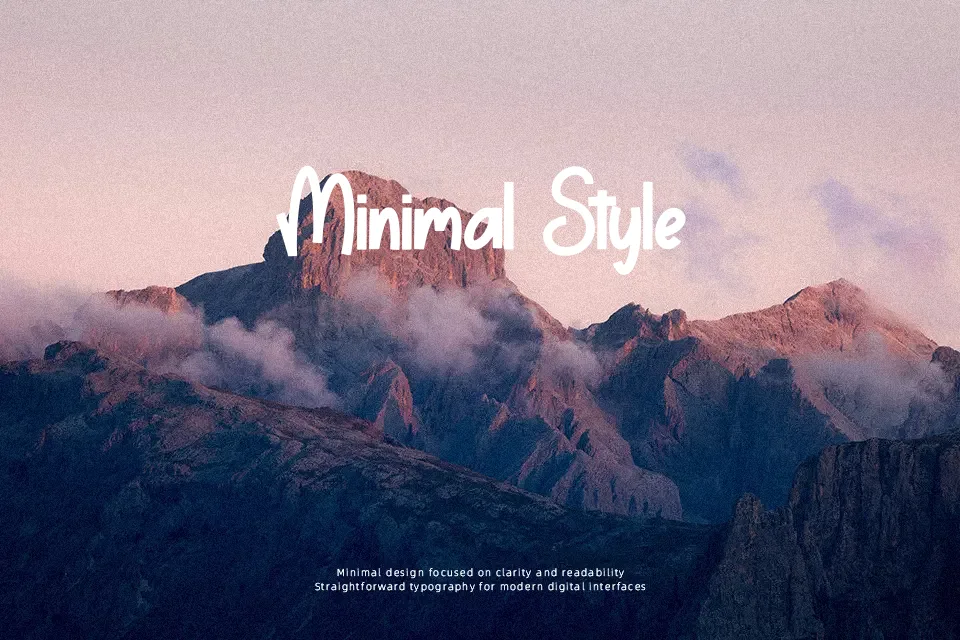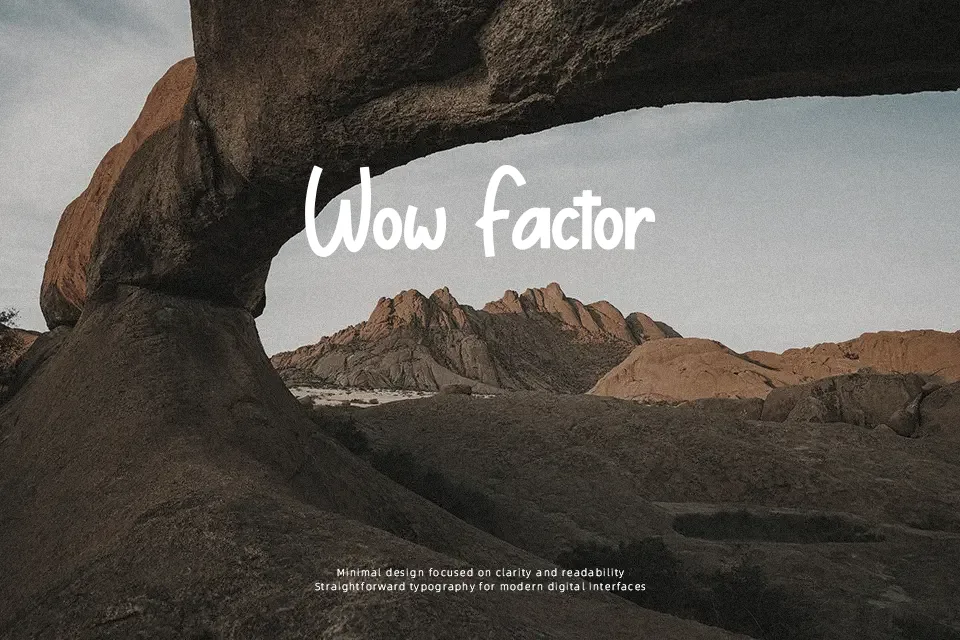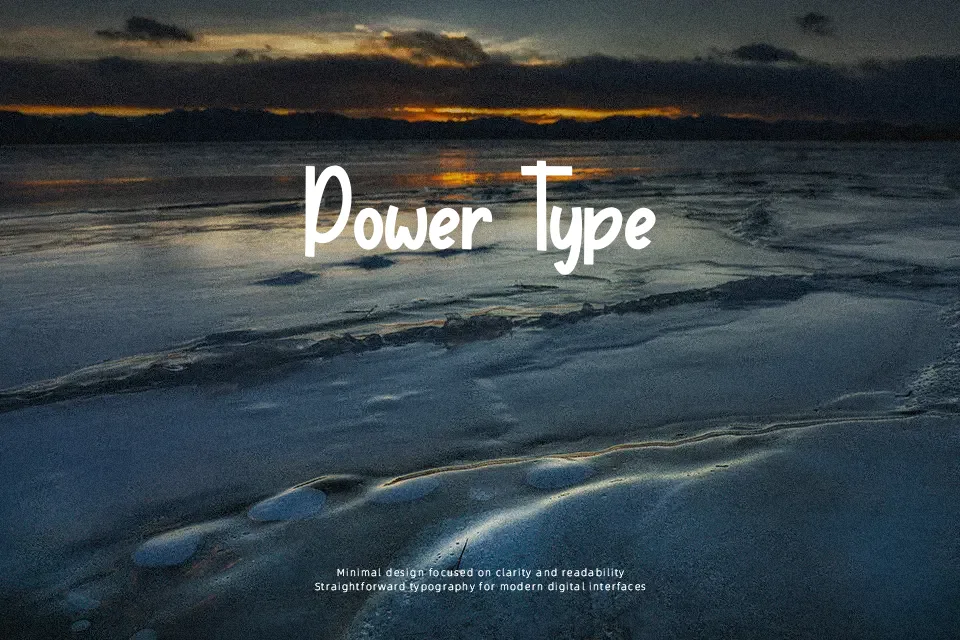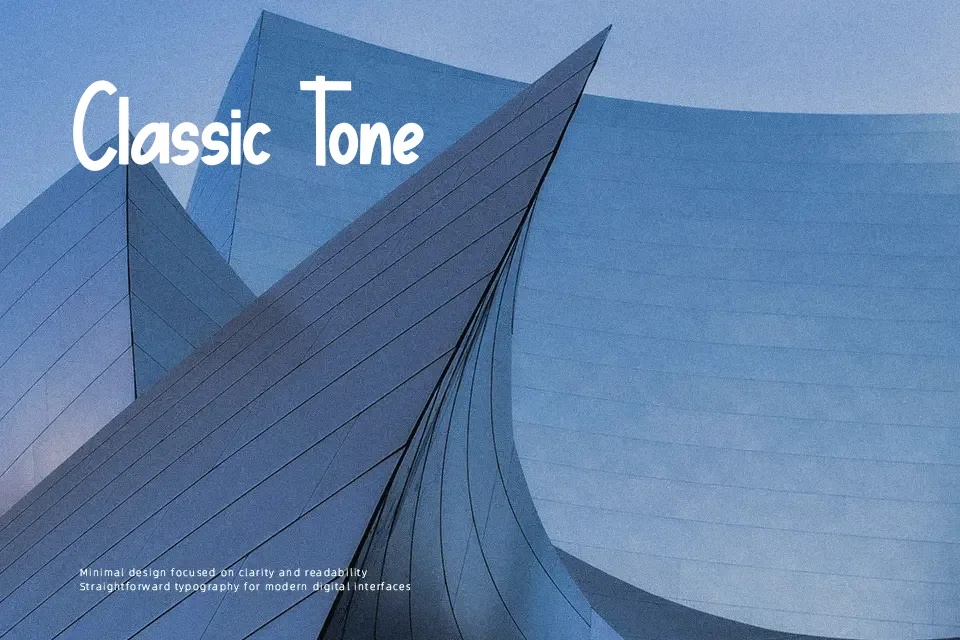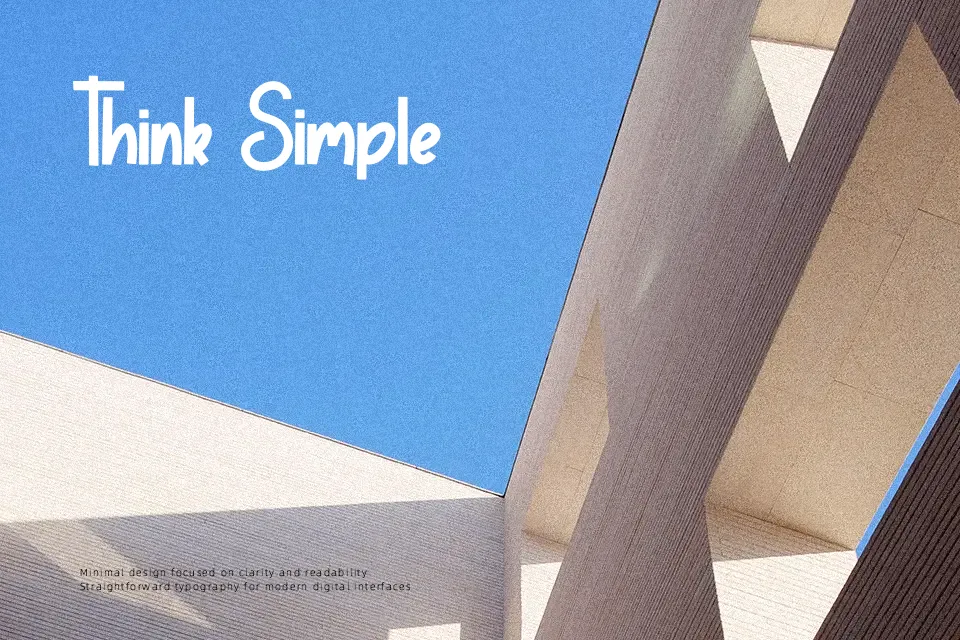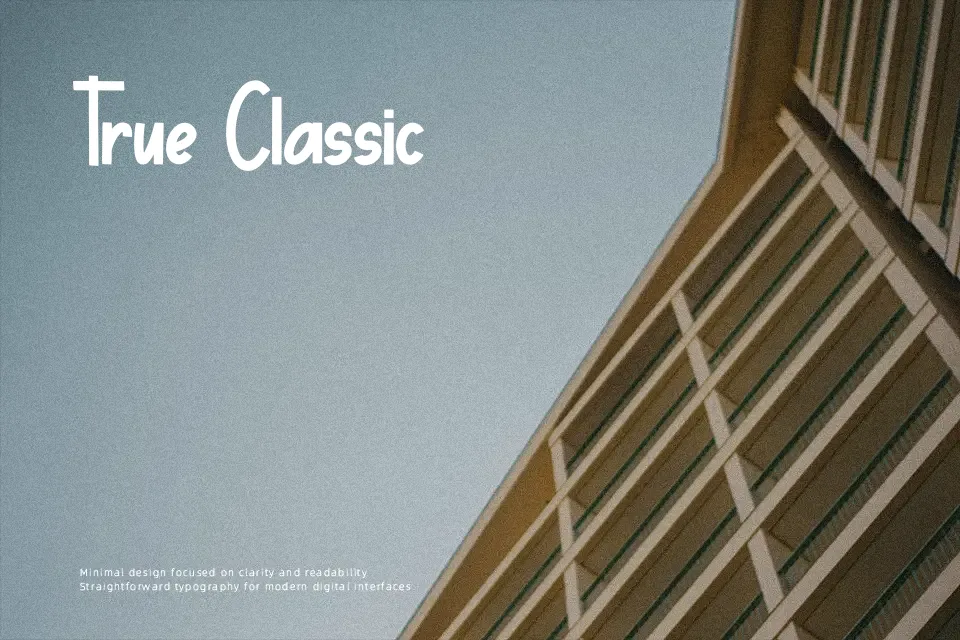
Stand Late Font
Designed by Skiiller Studio
Stand Late Font delivers a quirky visual treatment through thick, rounded letterforms and energetic outline variations. The typeface features relaxed character spacing and moderately uneven baseline heights, reinforcing a carefree, hand-drawn personality across uppercase and lowercase sets. Medium-to-heavy stroke weights provide substantial heft, which helps headline text stand out distinctly against busy poster backgrounds or packaging illustrations. However, the irregular proportions and expressive loops make continuous reading difficult across dense editorial layouts. While the design excels at commanding attention in short titles and playful video banners, smaller caption sizes lose legibility as enclosed counters fill in under tight line spacing.
Best For: kids book covers,playful product packaging,cartoon poster headlines,animated video titles
Not Ideal For: long editorial paragraphs,corporate financial reports,dense mobile interface copy,small legal disclaimers
Perfect for gaming, headline, and kids, with a creative and cartoon style.